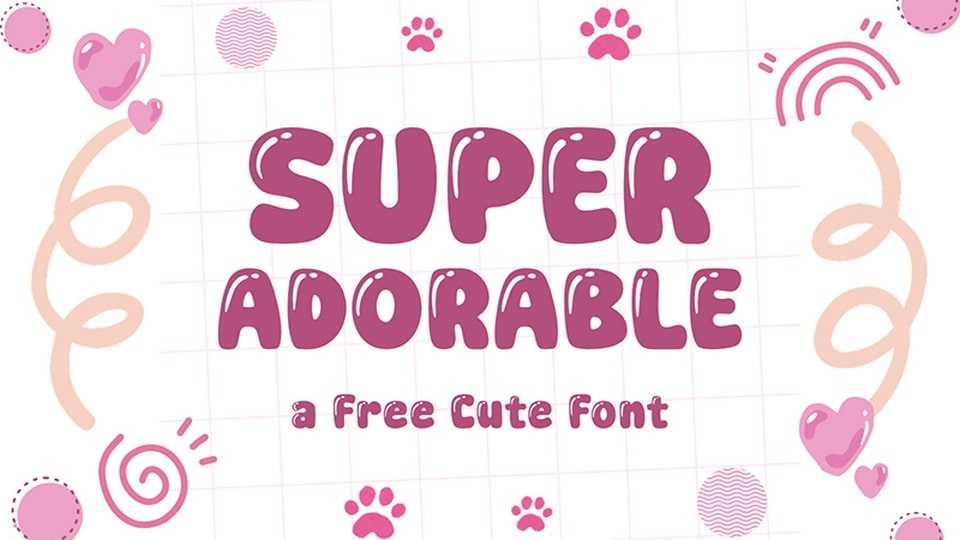
Download Super Adorable font, a bubbly, rounded, and irresistibly cute typeface designed to sprinkle joy into every word with its soft curves, bold shapes, and playful personality.